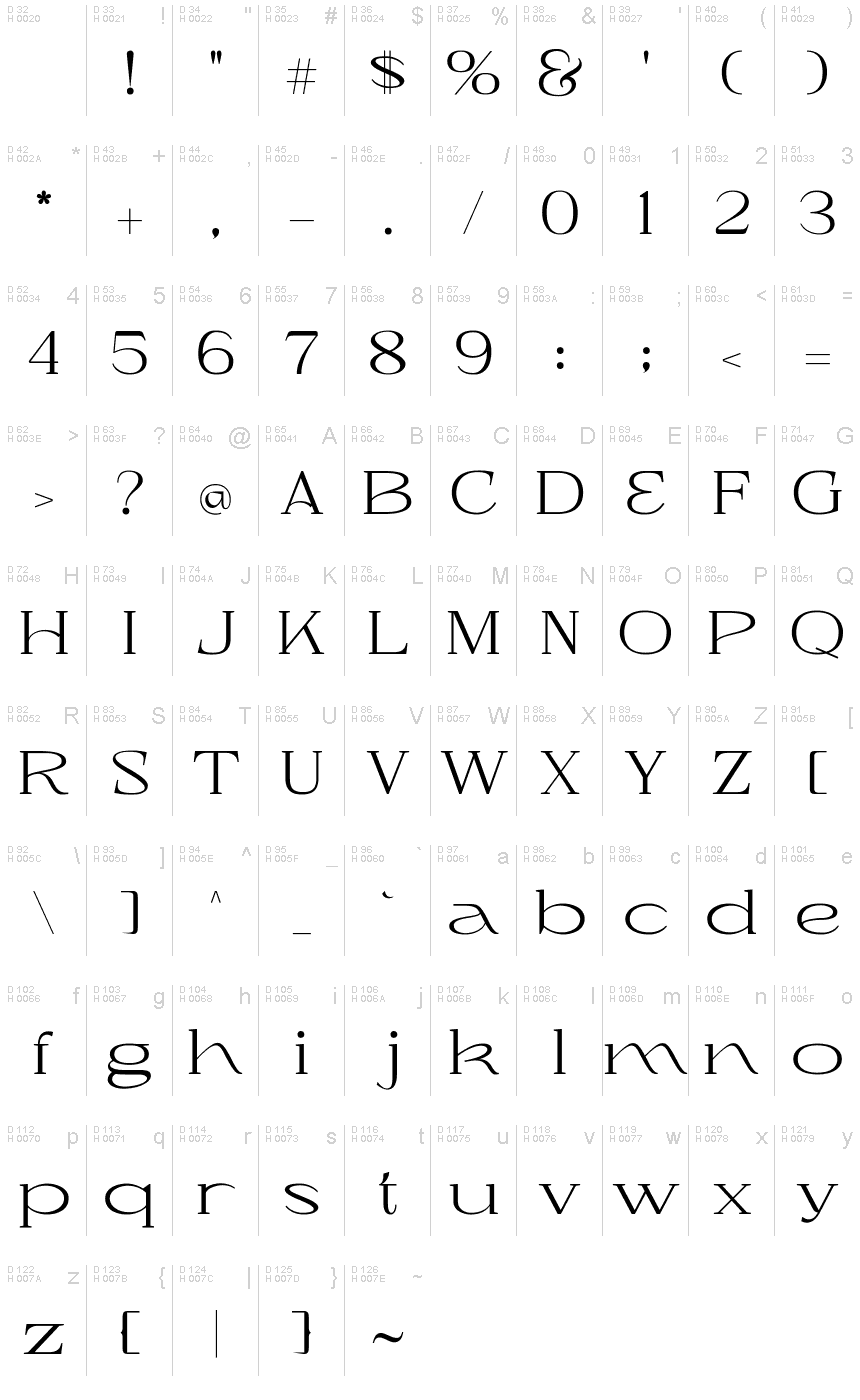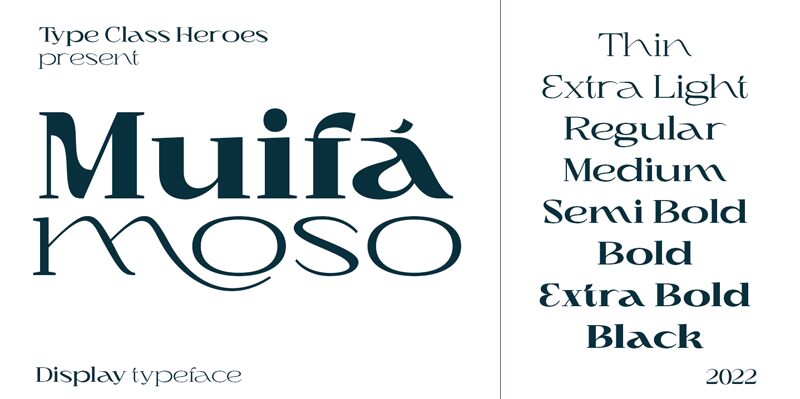
Muifamoso Demo Thin
Muifamoso Thin, designed by TypeClassHeroes, is a testament to the elegance of minimalism. This member of the Muifamoso font family stands out with its light weight and expanded width, offering a modern and sophisticated feel that captivates the eye. Its slender lines and generous spacing speak to a chic aesthetic that is both versatile and striking.
The font exudes an airy grace, making it perfect for high-end branding, luxury packaging, or any creative project where a touch of finesse is desired. Muifamoso Thin's expansive character set ensures comprehensive language support, broadening its applicability across diverse designs.
Whether you're crafting an elegant invitation or developing sleek branding materials, Muifamoso Thin promises to imbue your work with a subtle yet powerful presence. Its clean lines and balanced proportions make it not just a typeface but a statement of style.